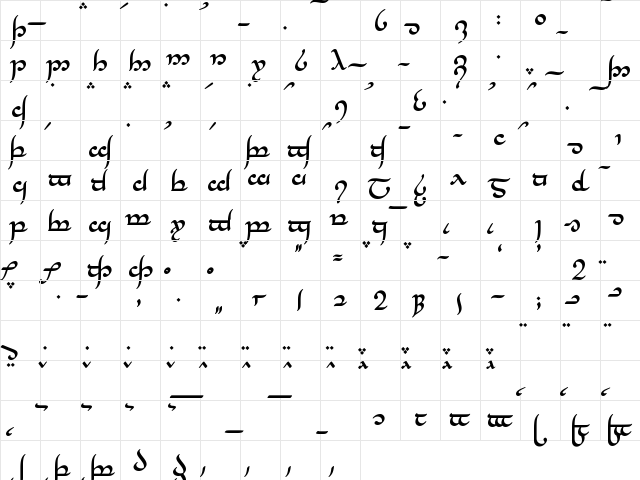
Tengwar Annatar Bold
| Designer | Johan Winge |
Design Context for Tengwar Annatar Typeface
Tengwar Annatar takes a measured approach to typography — its balanced proportions and neutral character make it a reliable workhorse for both digital and print work. Its bold stroke weight gives it real presence on the page.